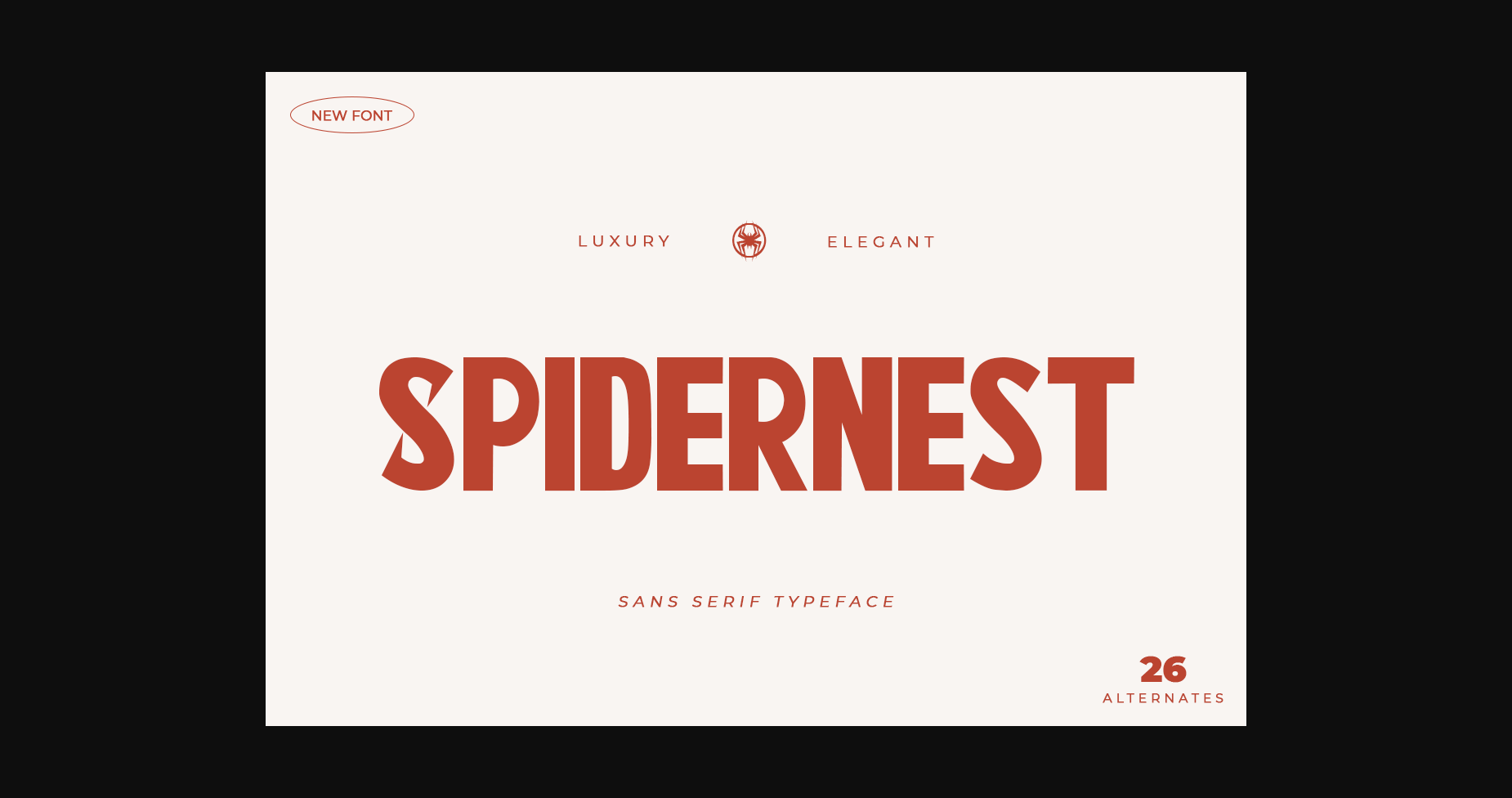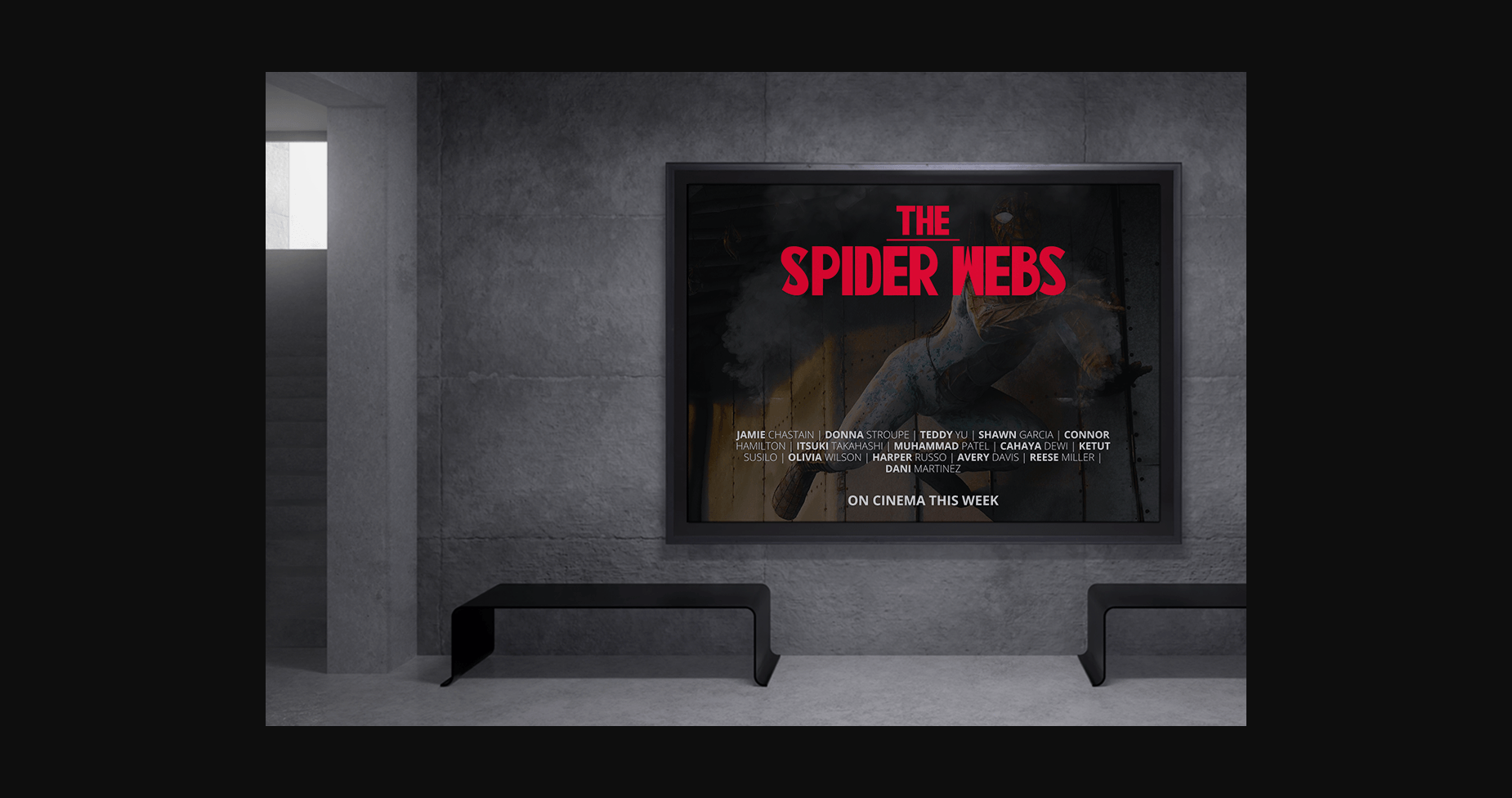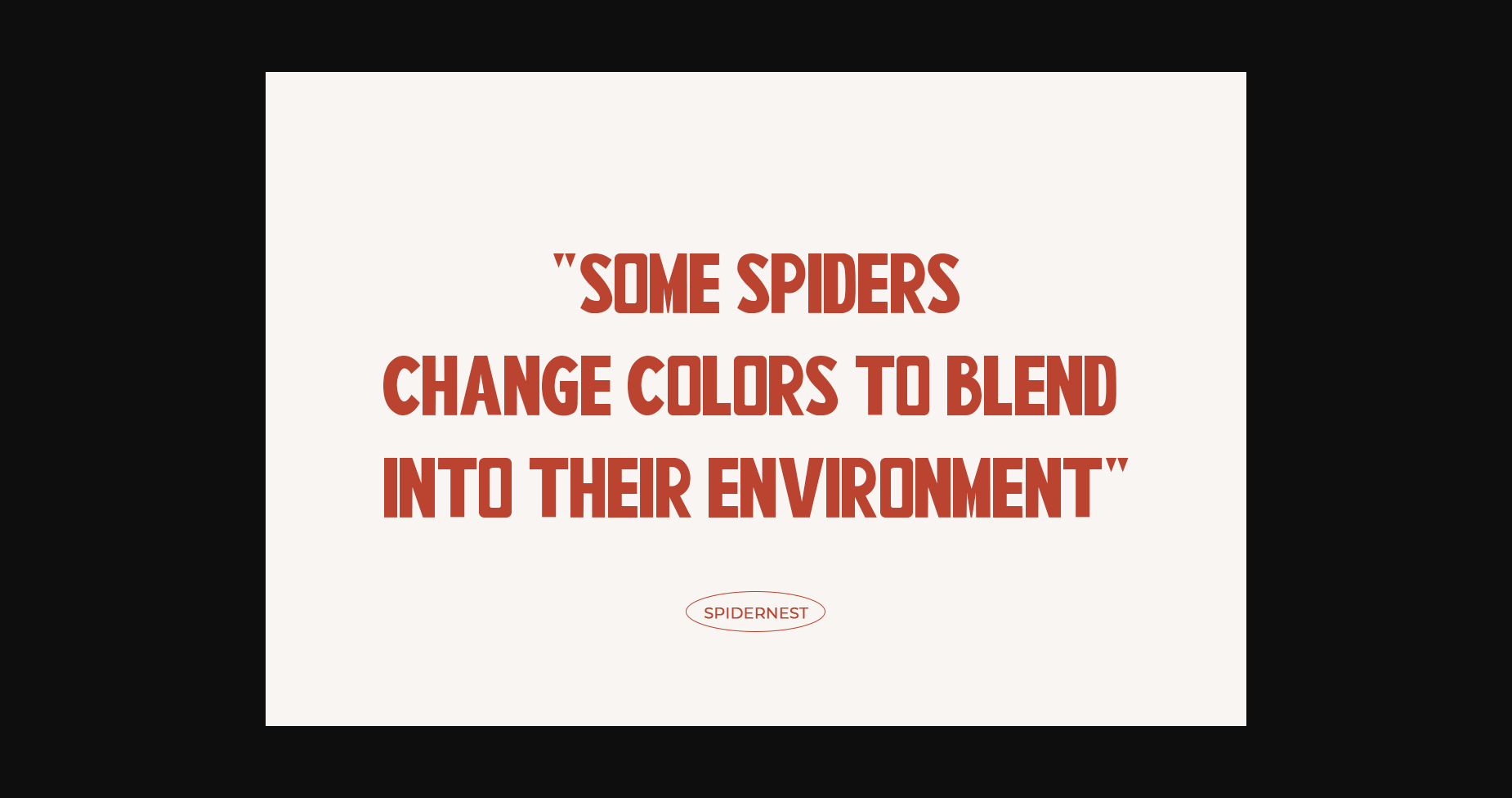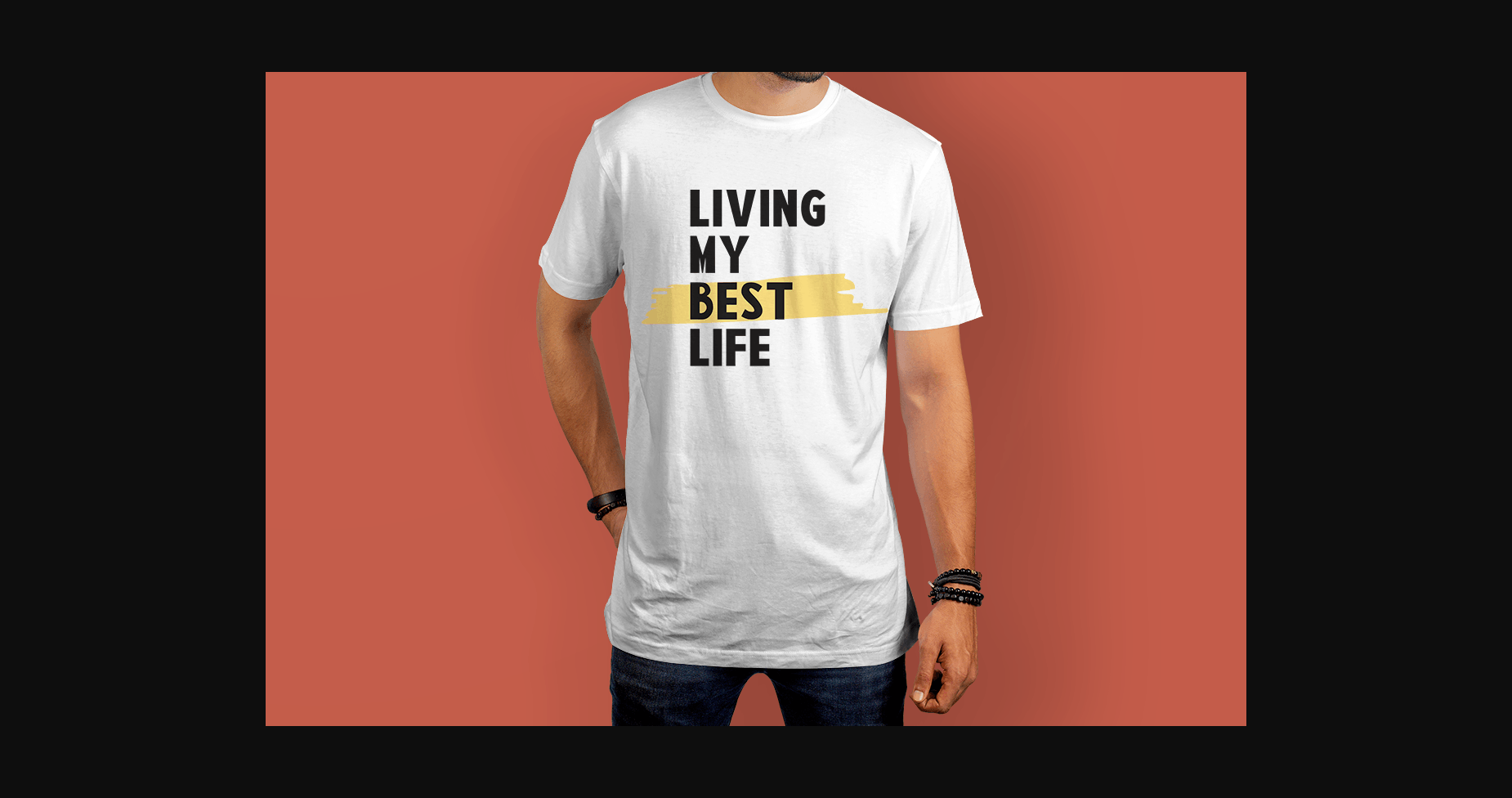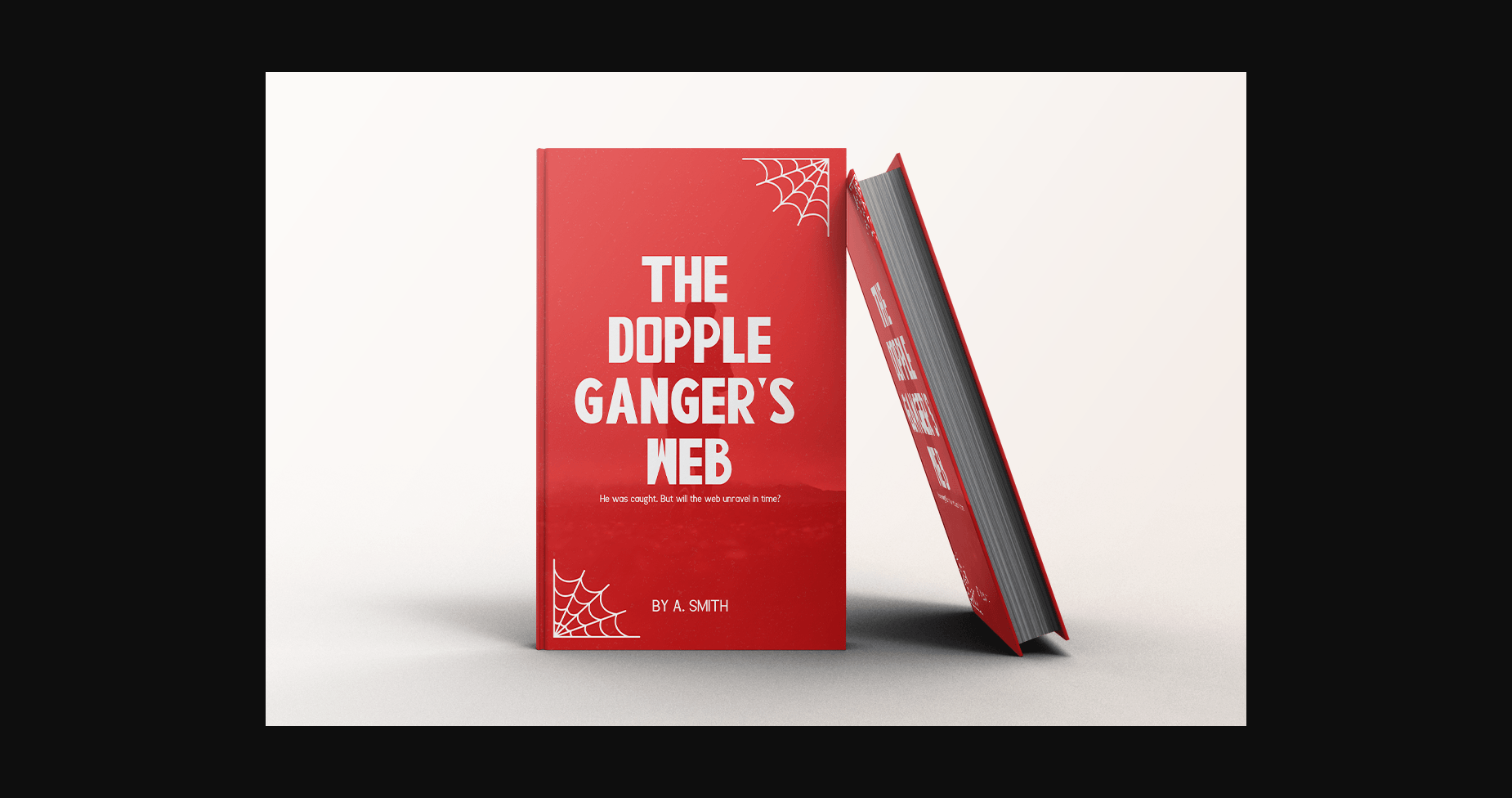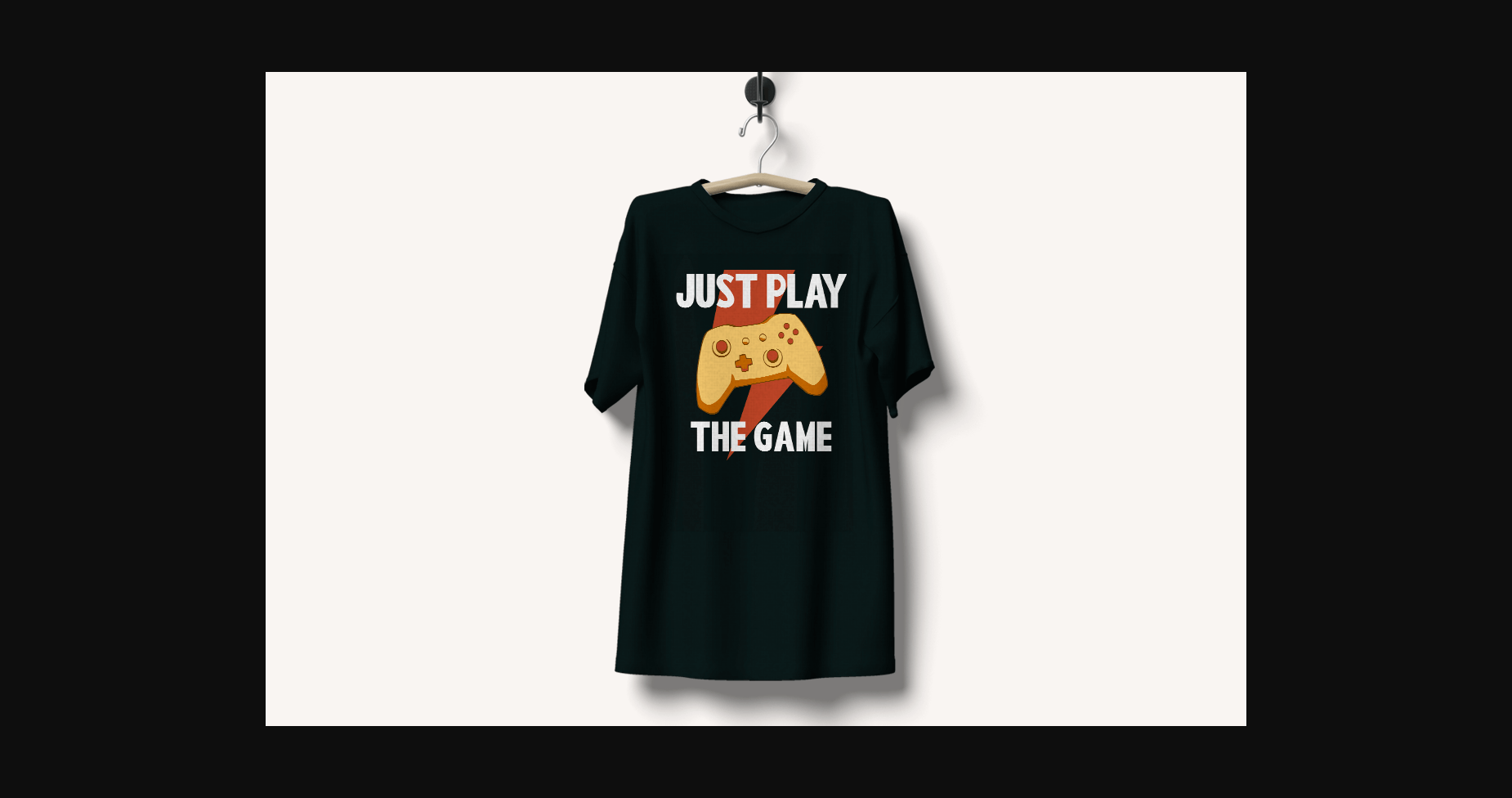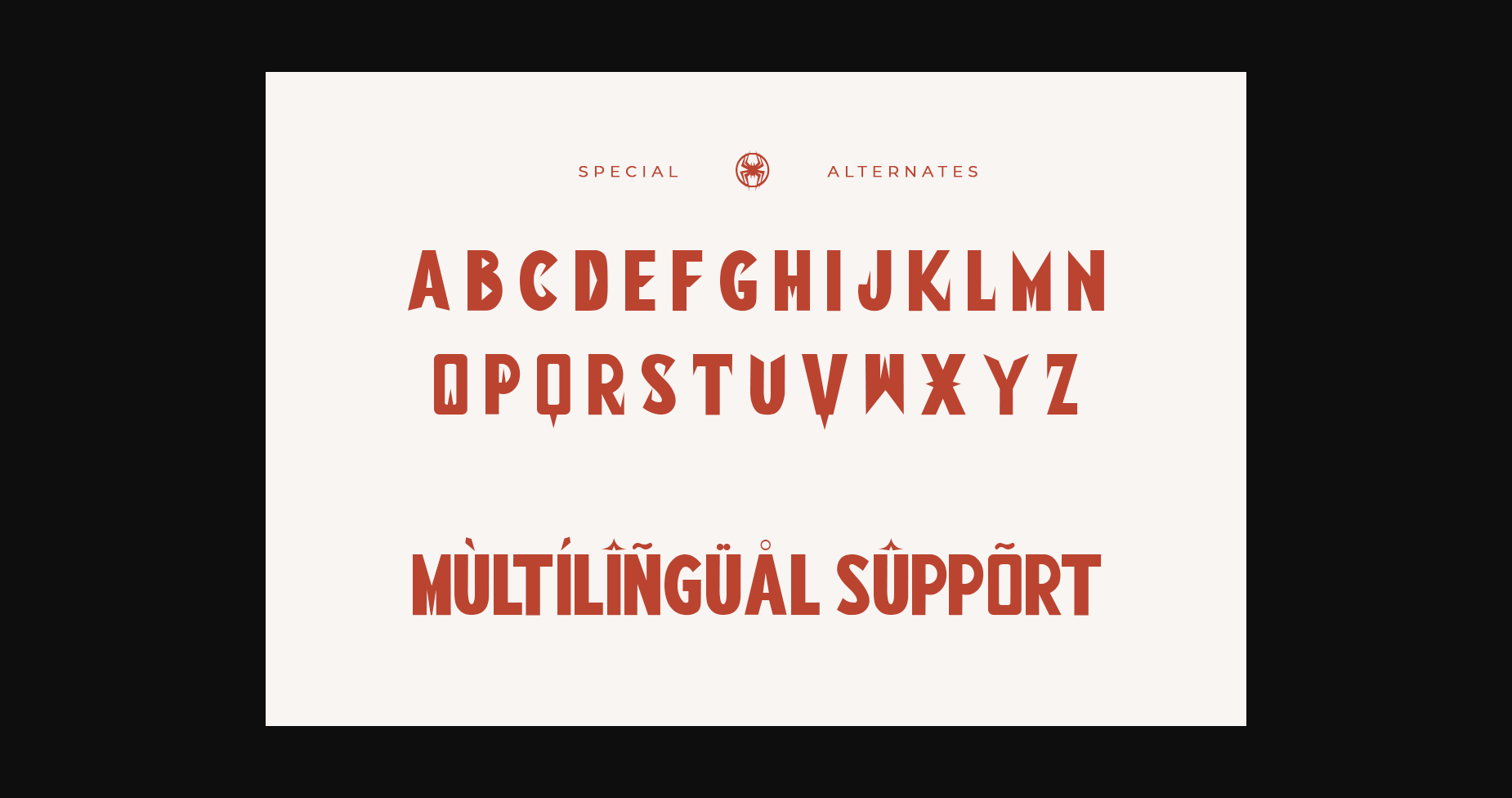
Spidernest Font
About Spidernest Font
Spidernest is a cool and elegant sans serif font. Be intrigued by the style and add it to your design projects for an original look. It’s perfect for a movie title, greeting card, magazine, poster, social media, lettering, t-shirt design, quote, logo, apparel, advertising, and packaging designs.